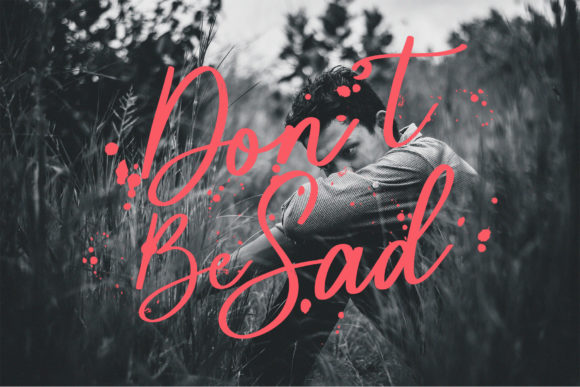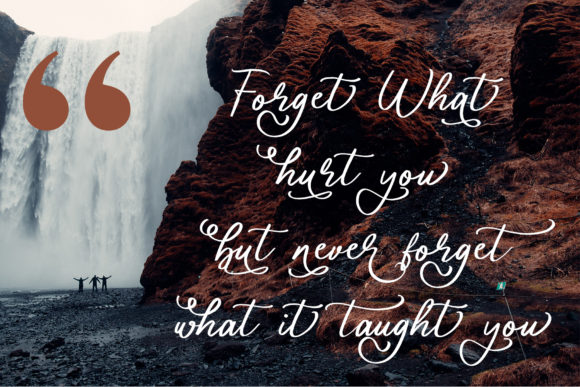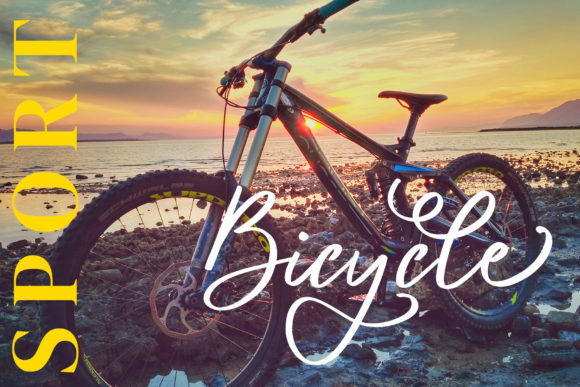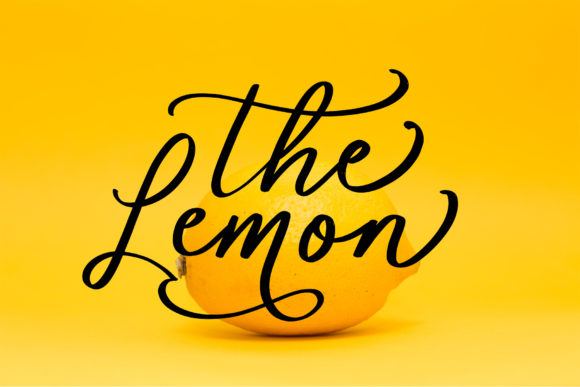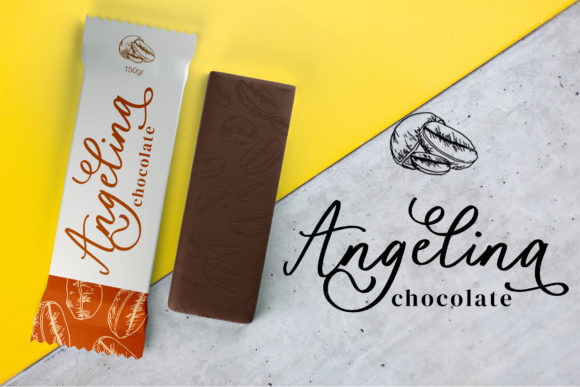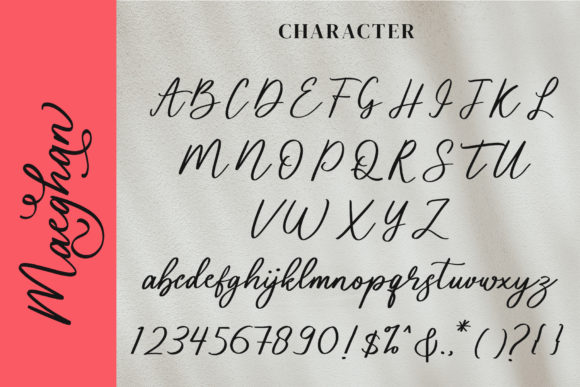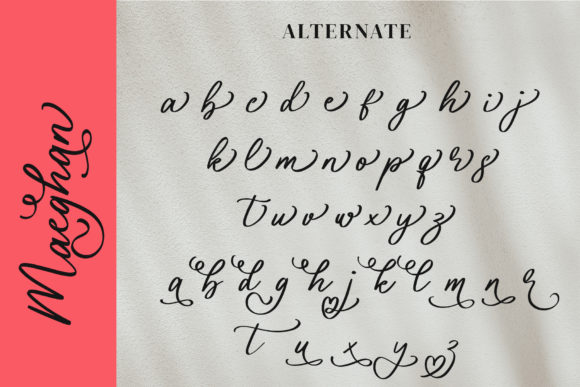
HomeScript FontsMaeghan Font Script Fonts Maeghan Font FacebookXPinterestWhatsApp Maeghan Font Poster 2 Maeghan Font Poster 3 Maeghan Font Poster 4 Maeghan Font Poster 5 Maeghan Font Poster 6 Maeghan Font Poster 7 Maeghan Font Poster 8 About Maeghan Font Maeghan is a sweet and playful script that’s full of life. It will make any craft stand out. DOWNLOAD NOW People also explored Bugetta – Calligraphy Font Haziness Font Kembara Cinta Outline Little Pumpkin Font Ramadan Font Ingfha Font Cattyline Font Roselyn Font Bainse Font 302 0 TagsMaeghan Font Previous articleMenthol FontNext articleBastogne Font LEAVE A REPLY Cancel reply Comment: Please enter your comment! Name:* Please enter your name here Email:* You have entered an incorrect email address! Please enter your email address here Website: Save my name, email, and website in this browser for the next time I comment. Personal Use Free Concrete Wall Personal Use Free Read more about this font Nouradilla Script Free Version Personal Use Free Read more about this font Triangular Curves Personal Use Free Read more about this font Folgore Personal Use Free Read more about this font BLOG How to Cut Any Font on Cricut: Convert a Font to SVG (Free) Turn any font into a clean SVG so it cuts crisp on Cricut - a quick 3-step workflow using a free font-to-SVG tool. Free vs Paid Fonts: Why Investing in Premium Fonts Is Worth It Using Fonts in Digital Marketing: Tips to Strengthen Your Brand Identity The 10 Best Handwriting Fonts to Add Personality to Your Designs